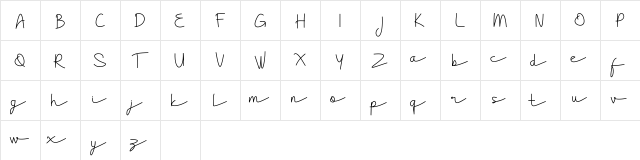
Layla Demo Font Preview
Layla Demo
Layla Demo Font Details
Design Context for Layla Typeface
Layla is a composed and adaptable typeface that performs quietly and consistently across a wide range of design contexts.
Pro Tip: Pair Layla with a font of contrasting weight or personality to build a more expressive typographic hierarchy.